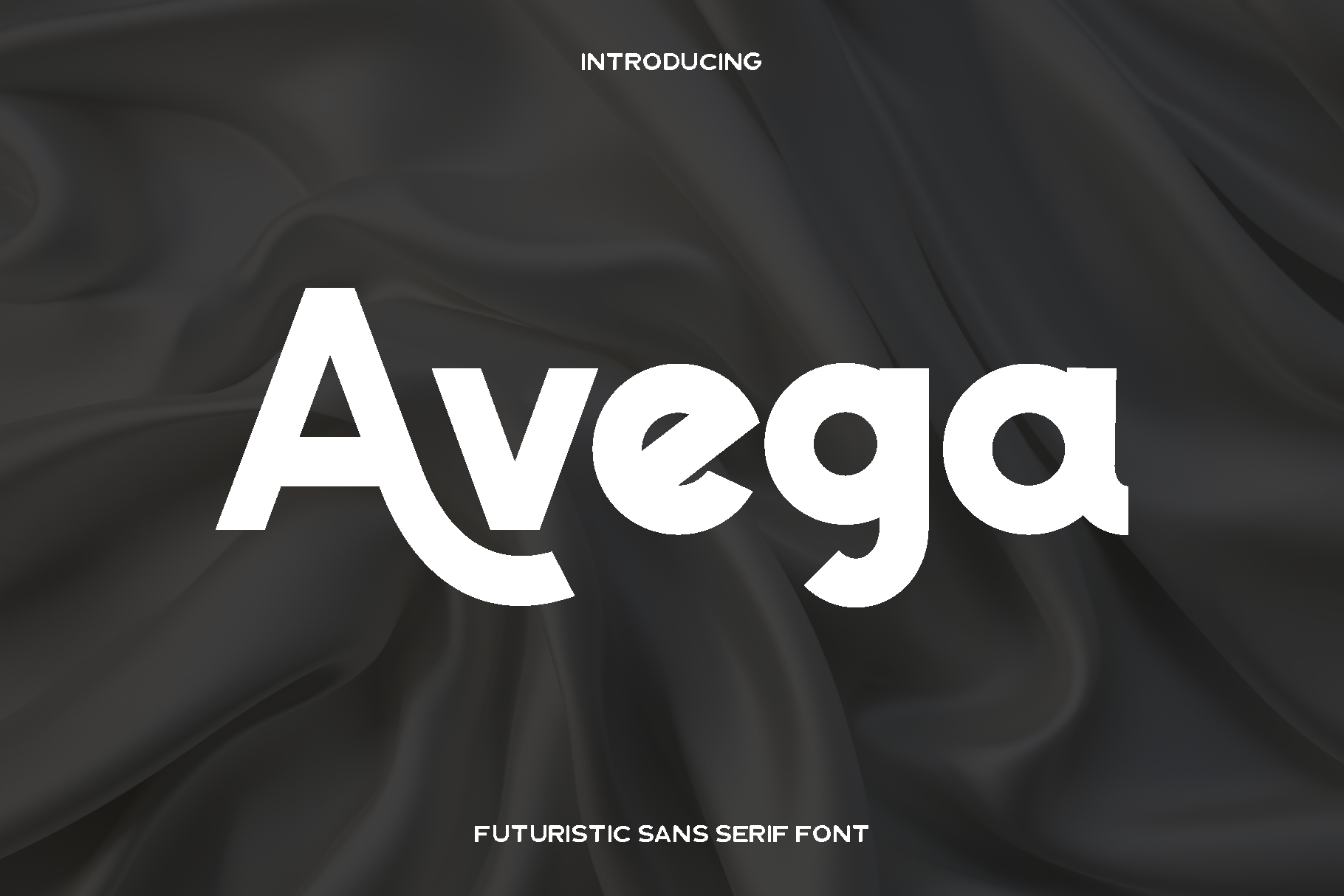
Avega - Modern Display Font
Avega is a modern typeface designed with a strong sense of rhythm, balance, and visual harmony. Inspired by a thoughtful mix of contemporary design influences, Avega features carefully adjusted proportions, subtle contours, and refined contrast that give it a clean yet expressive personality. Every glyph is crafted to feel precise and elegant, allowing the font to remain minimal while still delivering a distinctive and attractive presence.
This typeface shines across a wide range of creative applications. Avega is ideal for branding, logos, editorial layouts, magazines, brochures, posters, advertising, digital content, video titles, games, and social media templates. Its balanced structure ensures excellent readability while maintaining a polished aesthetic that elevates both print and digital designs.
Avega feels modern, calm, and confident. It adapts effortlessly to professional and creative projects, making it a versatile choice for designers who value clarity, flexibility, and timeless style. Whether used in bold headlines or clean layouts, Avega brings consistency and sophistication to your visual identity.
Avega Typeface Features:
• Clean and balanced character standards
• Numerals and punctuation
• Accented characters for Western European languages
Avega is crafted to support creative freedom while maintaining elegance and simplicity, making it a reliable and stylish addition to any designer’s font library.